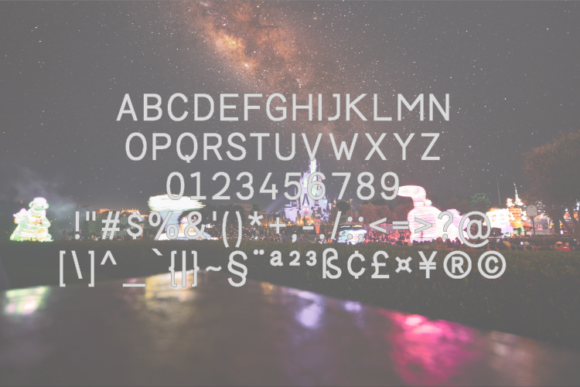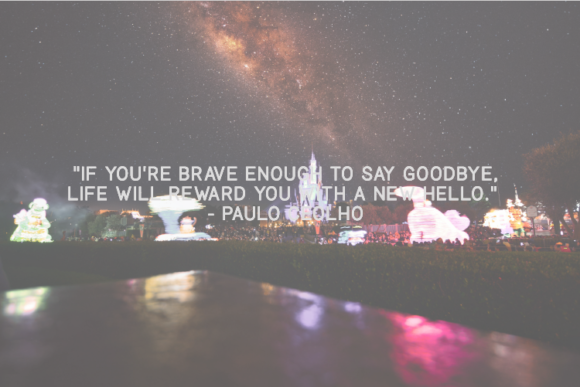
Introducing Britter Font: The Ultimate Sans Serif for Creative Projects
Are you tired of using the same old fonts for your creative projects? Look no further than Britter Font, a simple and neat sans serif font that’s perfect for adding a touch of modernity to your designs. With its clean lines and versatile style, Britter Font can easily be matched to an incredibly large set of projects, making it a must-have for designers and crafters alike.
What is Britter Font?
Britter Font is a sans serif font that’s designed to be easy to read and visually appealing. Its simple and neat design makes it perfect for use in a wide range of projects, from digital designs to print materials. Whether you’re creating a logo, brochure, or website, Britter Font is a great choice for adding a professional touch to your work.
Key Features of Britter Font
- Simple and Neat Design: Britter Font has a clean and minimalist design that’s easy on the eyes.
- Versatile Style: Britter Font can be used in a wide range of projects, from digital designs to print materials.
- Easy to Read: The font is designed to be easy to read, making it perfect for use in body text.
- Modern Look and Feel: Britter Font has a modern look and feel that’s perfect for adding a touch of sophistication to your designs.
Benefits of Using Britter Font
So why should you choose Britter Font for your creative projects? Here are just a few benefits of using this versatile font:
- Improved Readability: Britter Font is designed to be easy to read, making it perfect for use in body text.
- Increased Versatility: With its clean and simple design, Britter Font can be used in a wide range of projects.
- Professional Look and Feel: Britter Font has a modern look and feel that’s perfect for adding a professional touch to your designs.
- Easier Design Process: With Britter Font, you can easily create professional-looking designs without spending hours searching for the perfect font.
How to Use Britter Font in Your Designs
Using Britter Font in your designs is easy. Here are a few tips to get you started:
- Pair it with Other Fonts: Britter Font pairs well with other sans serif fonts, making it easy to create a cohesive look.
- Use it for Body Text: Britter Font is perfect for use in body text, making it easy to read and understand.
- Add it to Your Brand Identity: Britter Font can be used to create a consistent brand identity across all your marketing materials.
Who Can Benefit from Using Britter Font?
Britter Font is perfect for anyone who wants to add a touch of modernity to their designs. Here are a few examples of who can benefit from using this versatile font:
- Graphic Designers: Britter Font is perfect for graphic designers who want to create professional-looking designs.
- Crafters: Britter Font can be used by crafters who want to add a personal touch to their projects.
- Marketers: Britter Font can be used by marketers who want to create a consistent brand identity across all their marketing materials.
In conclusion, Britter Font is a simple and neat sans serif font that’s perfect for adding a touch of modernity to your designs. With its clean lines and versatile style, Britter Font can easily be matched to an incredibly large set of projects. Whether you’re a graphic designer, crafter, or marketer, Britter Font is a great choice for adding a professional touch to your work. So why wait? Add Britter Font to your creative ideas and notice how it makes them stand out!